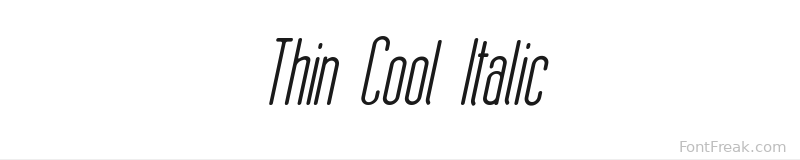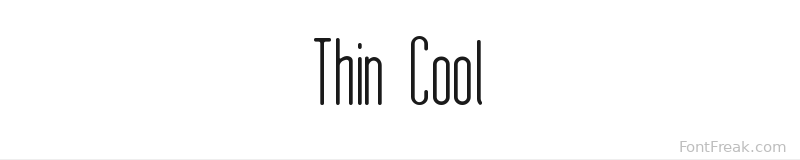
Thin Cool
Thin Cool Italic
The Thin Cool font by Galdino Otten Fonts is a striking sans-serif typeface characterized by its sleek and modern aesthetic. Released in 2015, this font embodies a minimalistic design that features an exceptionally thin stroke weight, creating a light and airy appearance. The contrast between the thin letters and ample spacing enhances readability, making it an excellent choice for various design projects. The font also includes an italic variant, adding versatility for emphasis and stylistic flair.
Thin Cool is ideal for a myriad of use cases. Its elegant simplicity makes it perfect for wedding invitations, where a refined touch is essential. Additionally, it can elevate movie posters by adding a contemporary feel that captures attention without overwhelming other elements. Restaurant menus benefit from its clean lines, allowing dish descriptions to shine with clarity. Furthermore, it serves well in branding projects and social media graphics, appealing to small business owners looking to make a memorable impression. Content creators will find it useful for blogs and websites, where a sophisticated yet approachable font can enhance user experience.
The target audience for Thin Cool spans graphic designers, small business owners, and content creators who seek a modern typeface that balances elegance with functionality. Its freeware license allows for easy access, making it an attractive option for creative professionals on a budget.
What sets the Thin Cool font apart is its seamless blend of style and practicality. Its minimalist design ensures that it complements a wide range of visual elements, while its thin strokes make it stand out in any project. For those looking to refresh their typography toolkit, the Thin Cool font free download is an excellent choice that promises sophistication and versatility in every application.